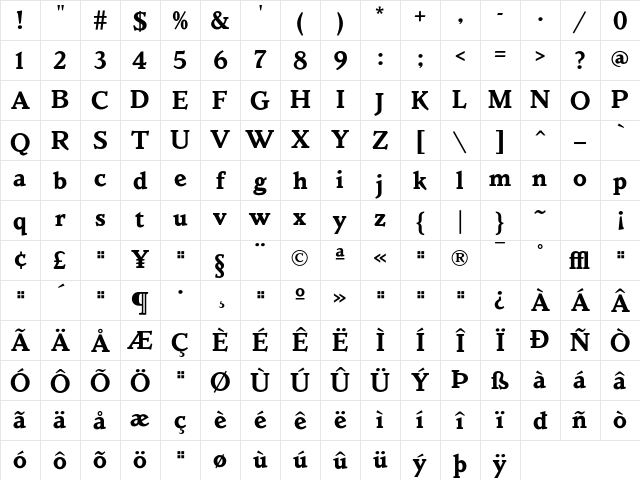
Parkinson Bold Free Font
Parkinson Bold
Design Context for Parkinson
Parkinson is a composed and adaptable typeface that performs quietly and consistently across a wide range of design contexts. Its bold stroke weight gives it real presence on the page.